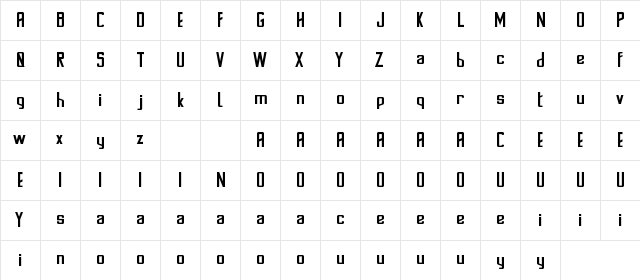
Stanwick Demo Regular
| Foundry | Edric Studio |
| Designer | Muhamad Nouval fr |
Design Context for Stanwick Demo Typeface
Stanwick Demo offers clean, dependable letterforms without strong stylistic allegiance, making it a practical choice for designers who need flexibility.